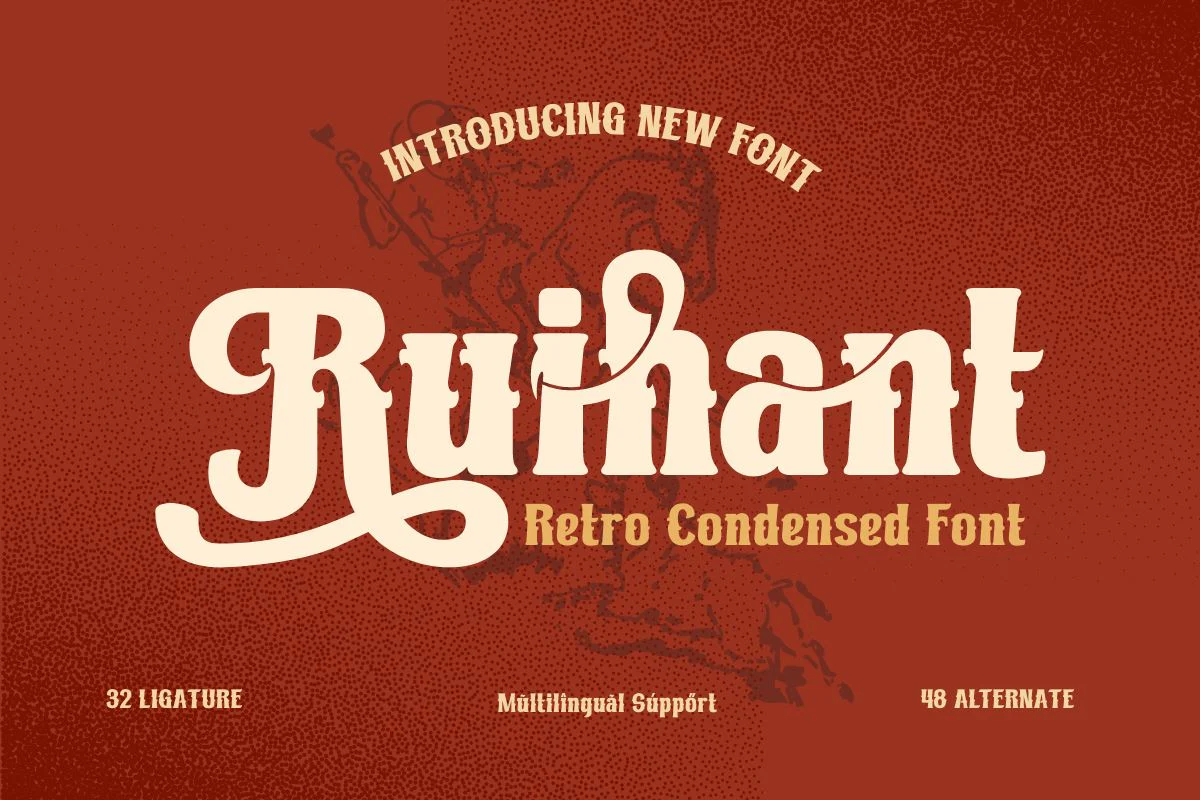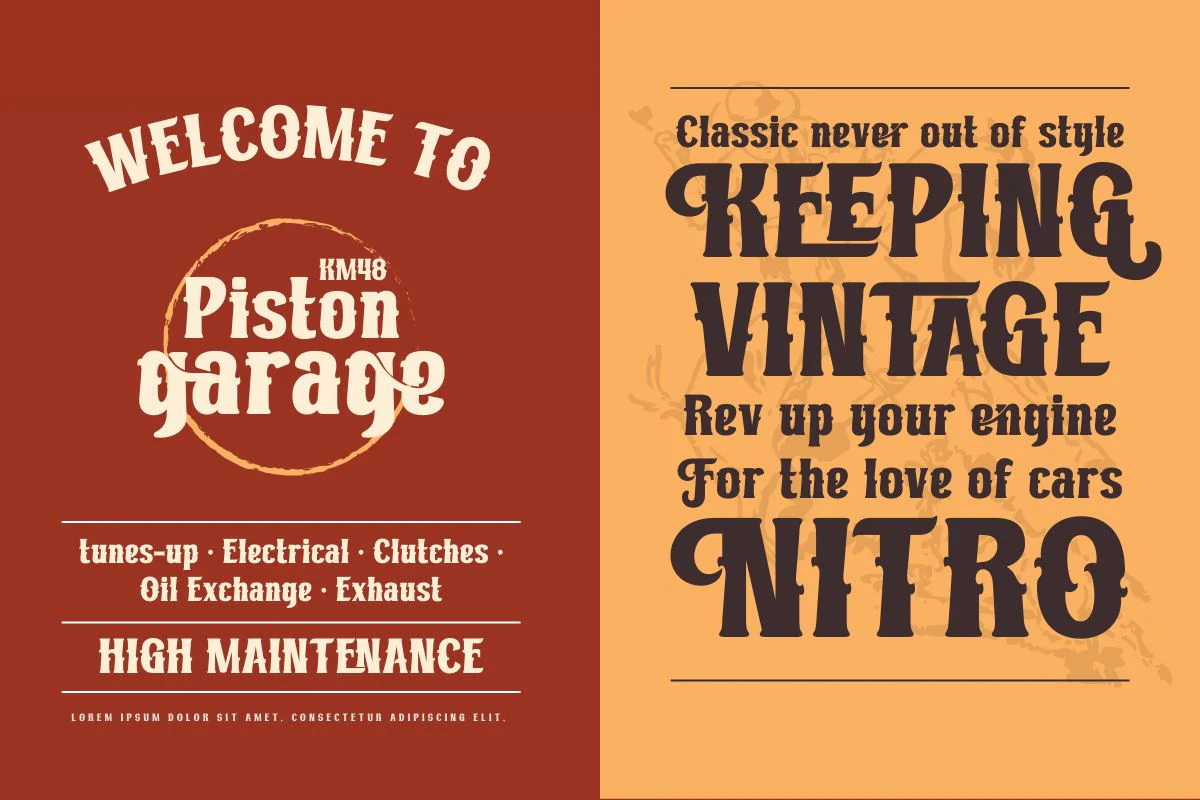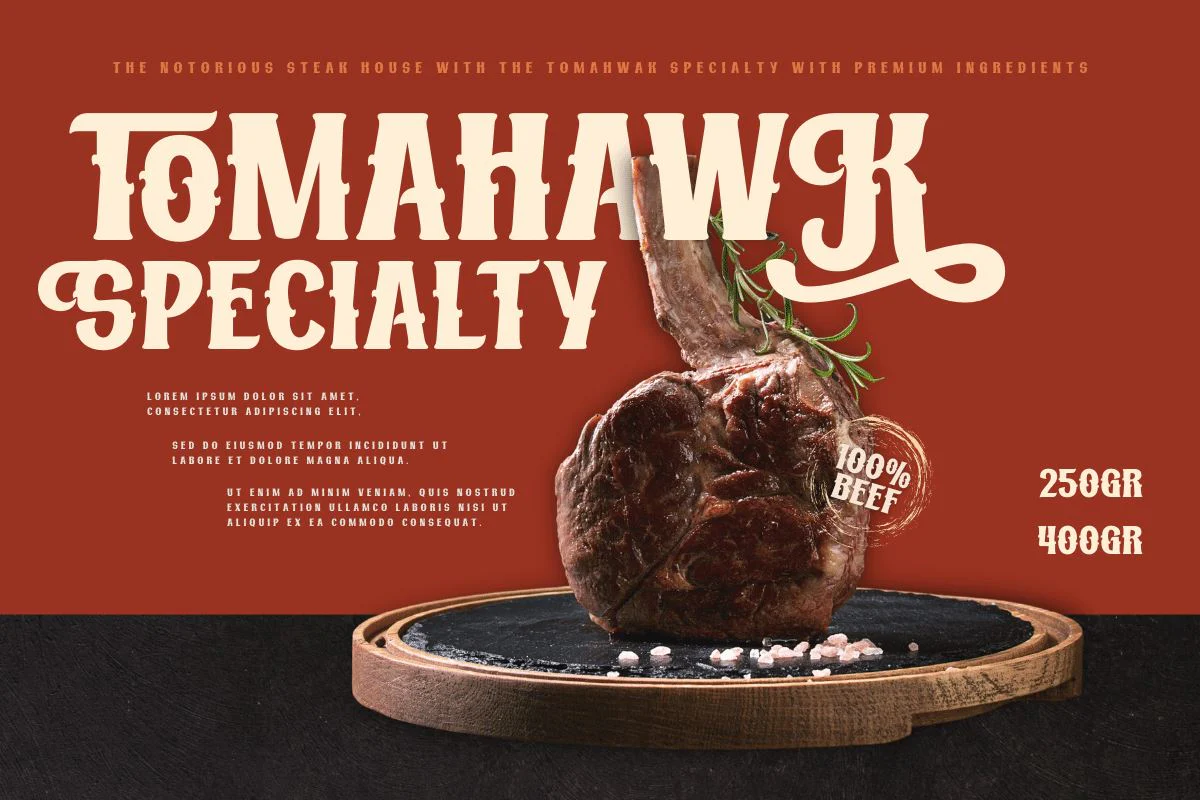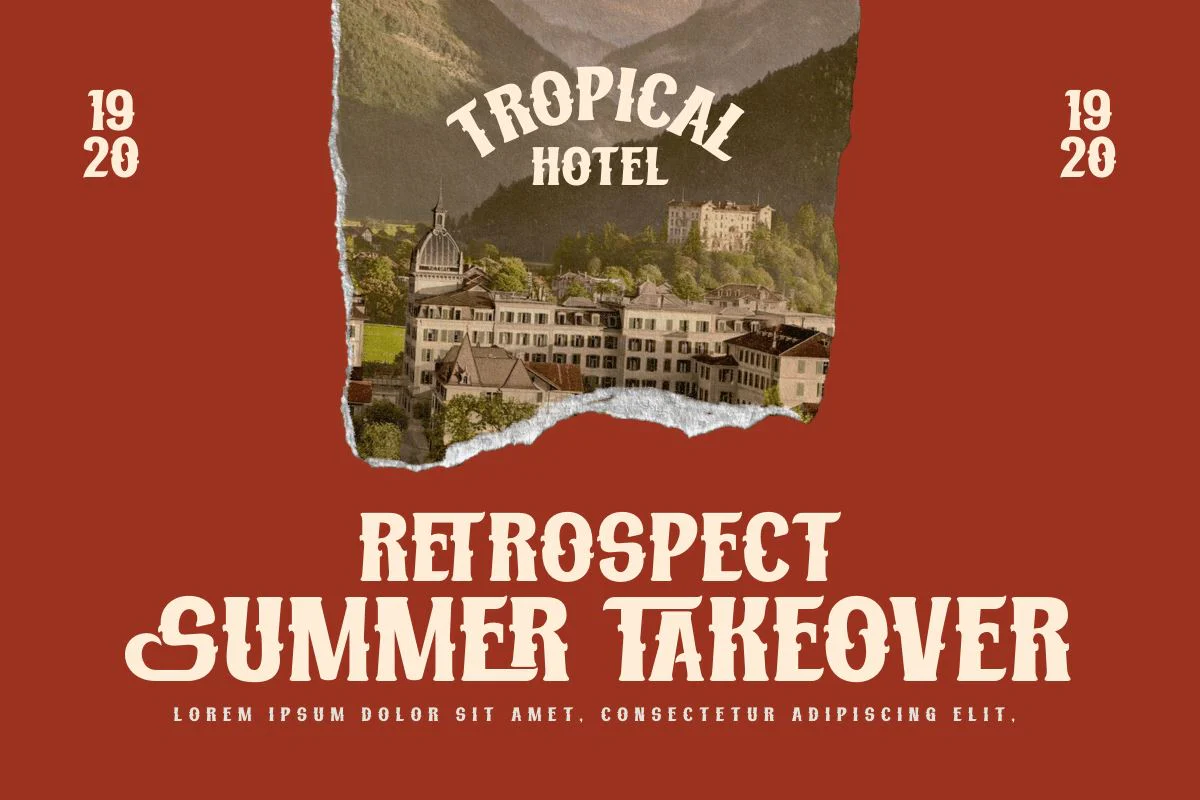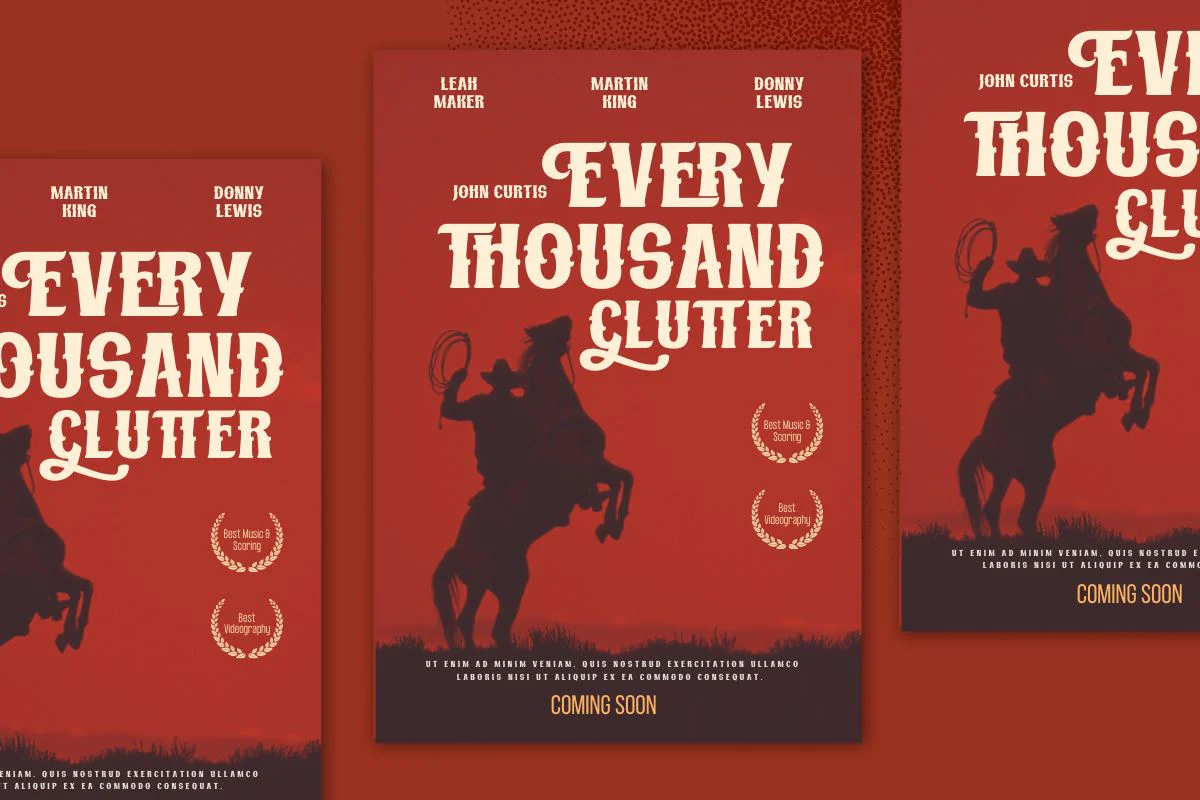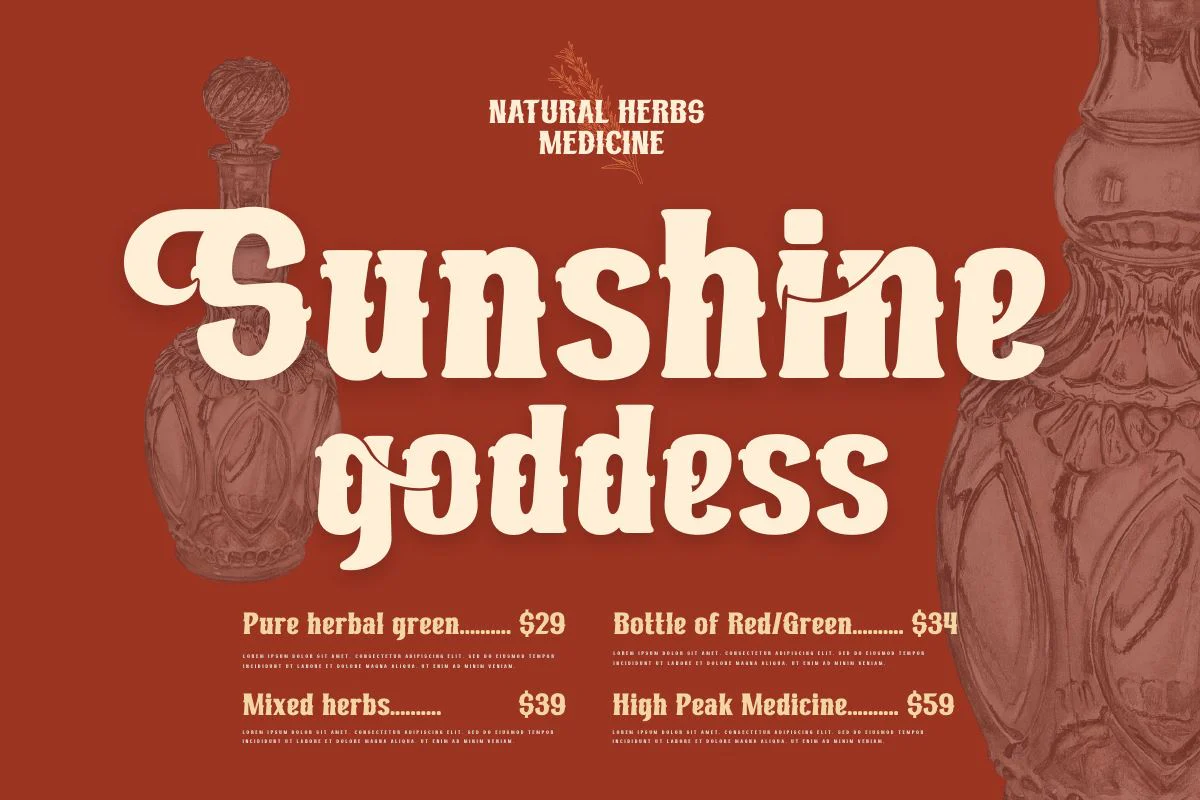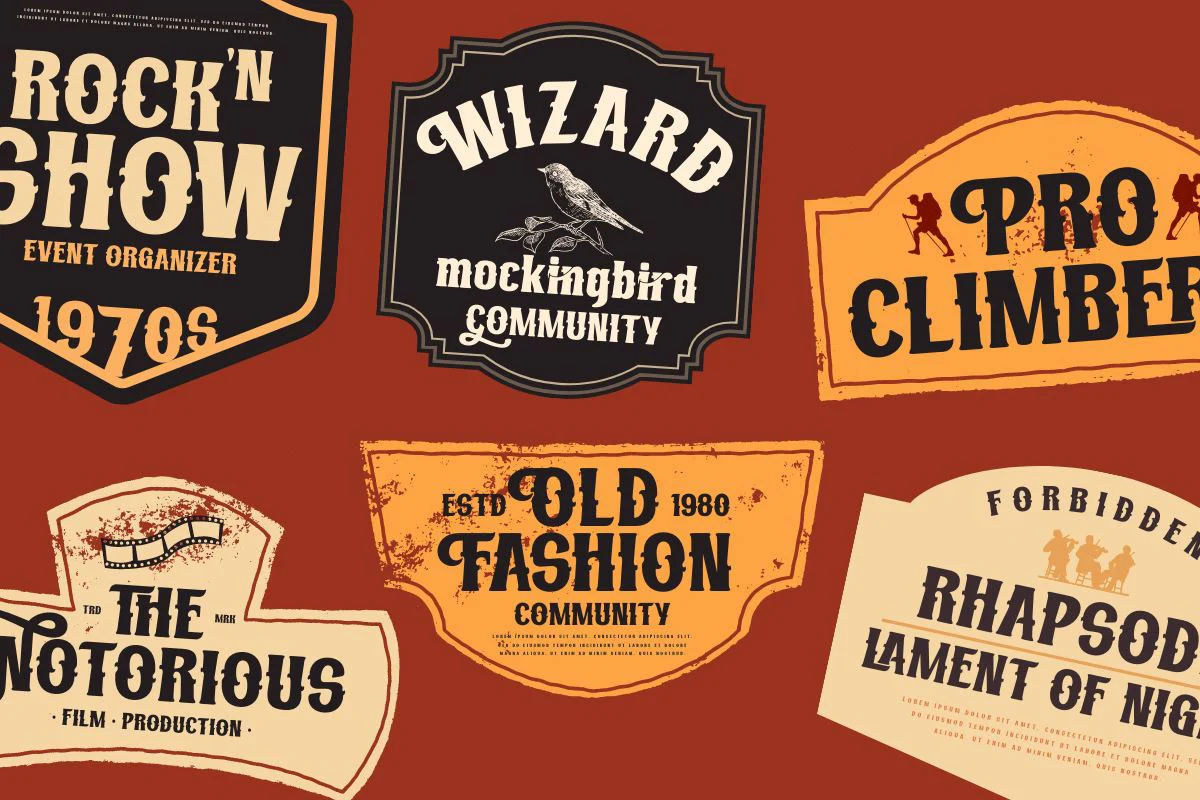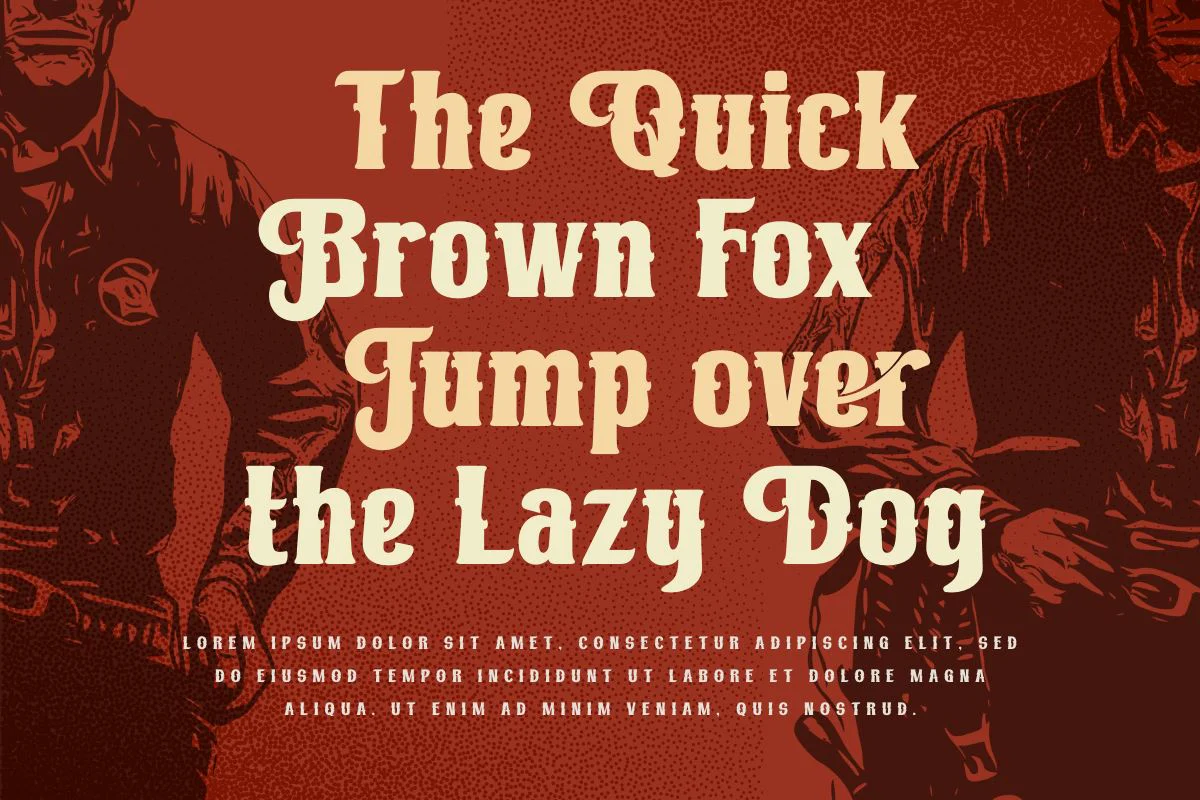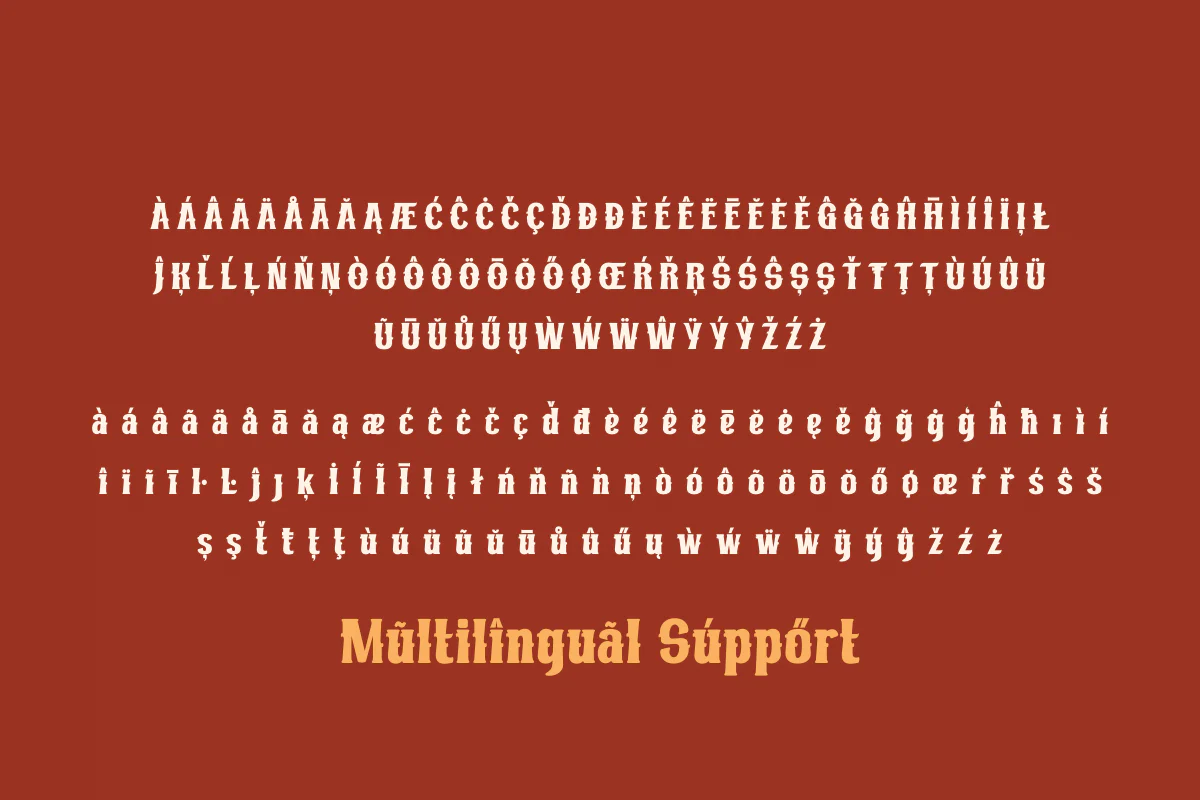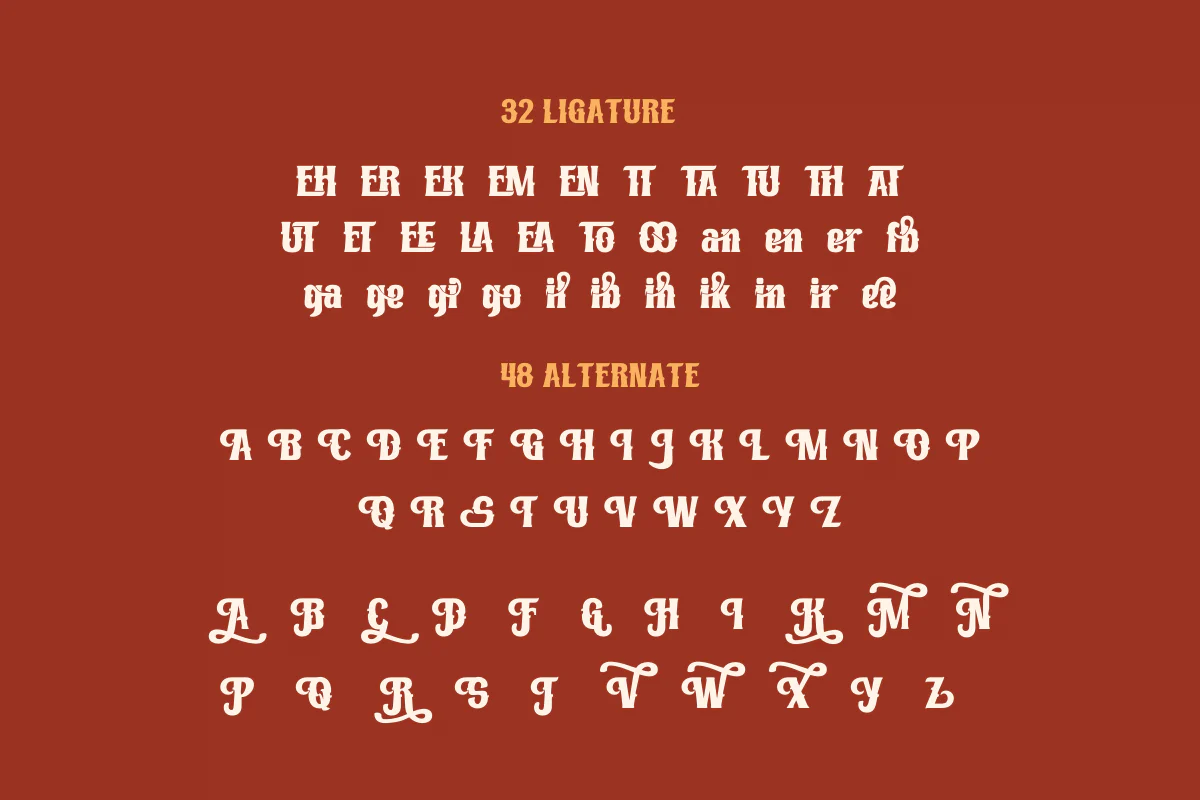
Ruihant | Retro Condensed Font
For those of you who require a typeface with an attractive classic, retro, and vintage vibe, Ruihant Retro Condensed is the ideal option. This font was created with an original and striking look, making it ideal for all of your creative projects.
Premium features like ligature, alternative, and multilingual support are included with the Ruihant, allowing you to customize the font’s design to suit your needs. This font’s straightforward and compact form will enable you to produce designs that are more well-structured and effective.